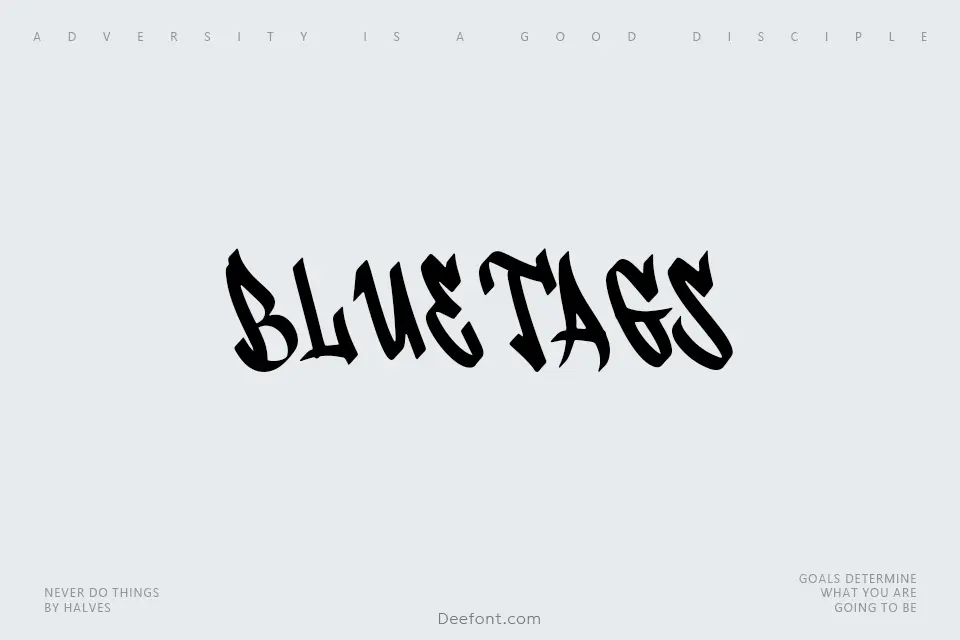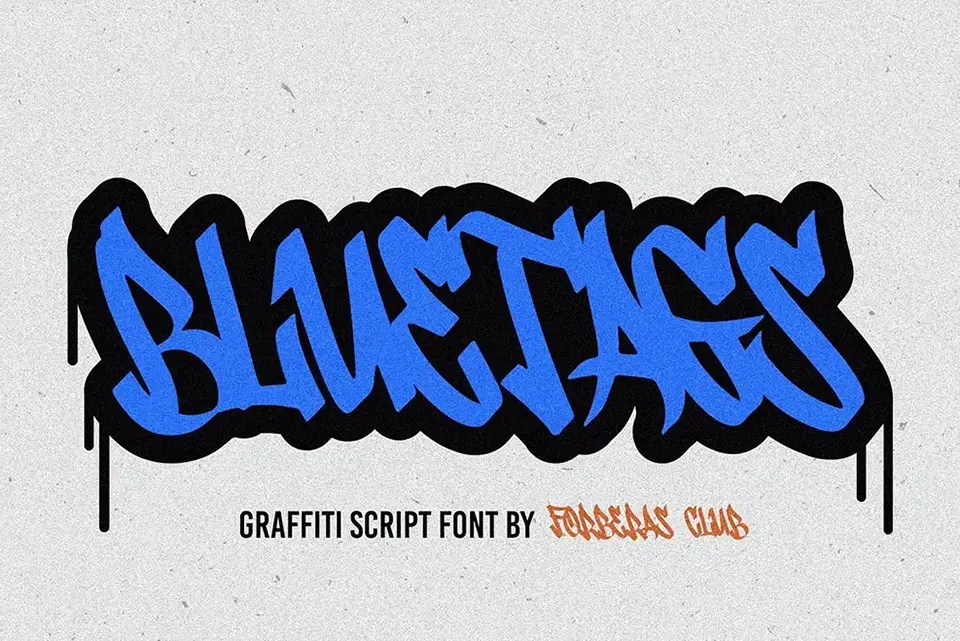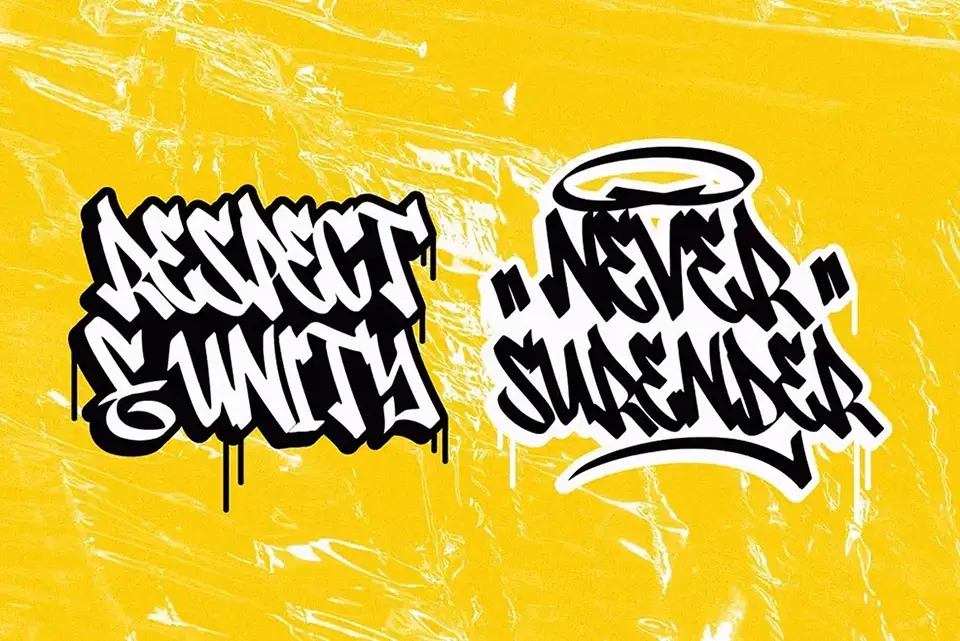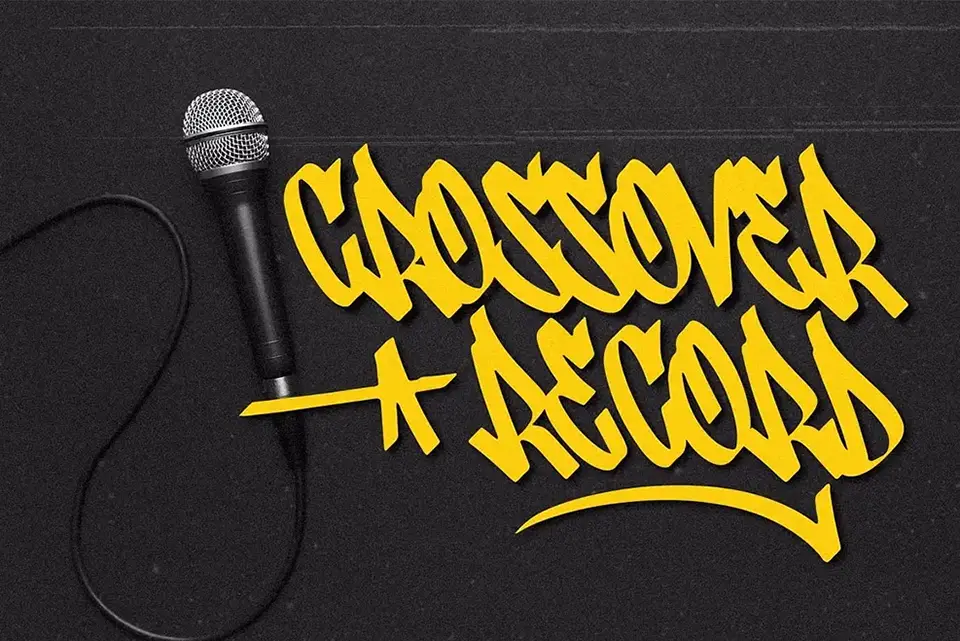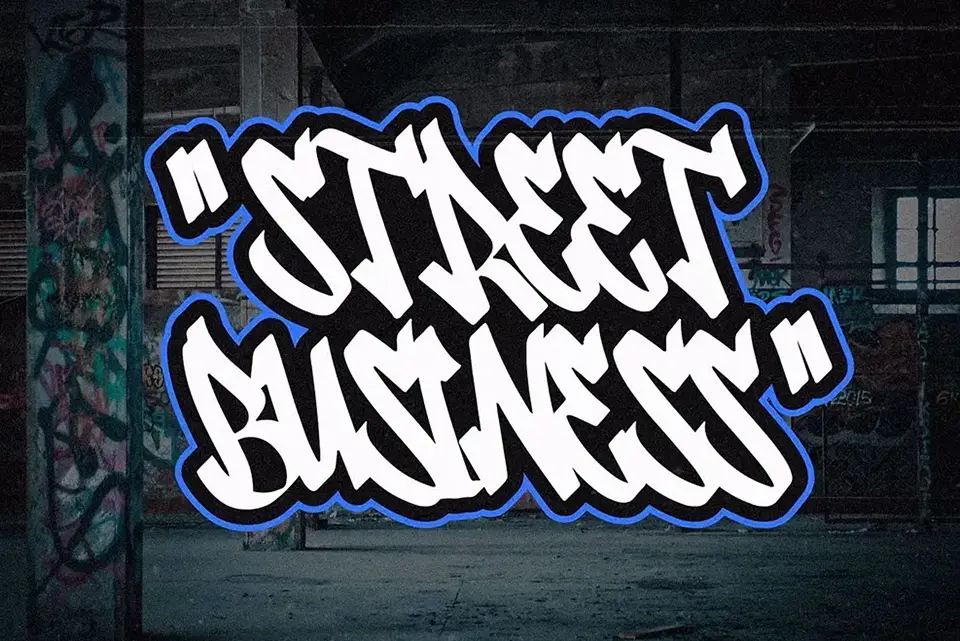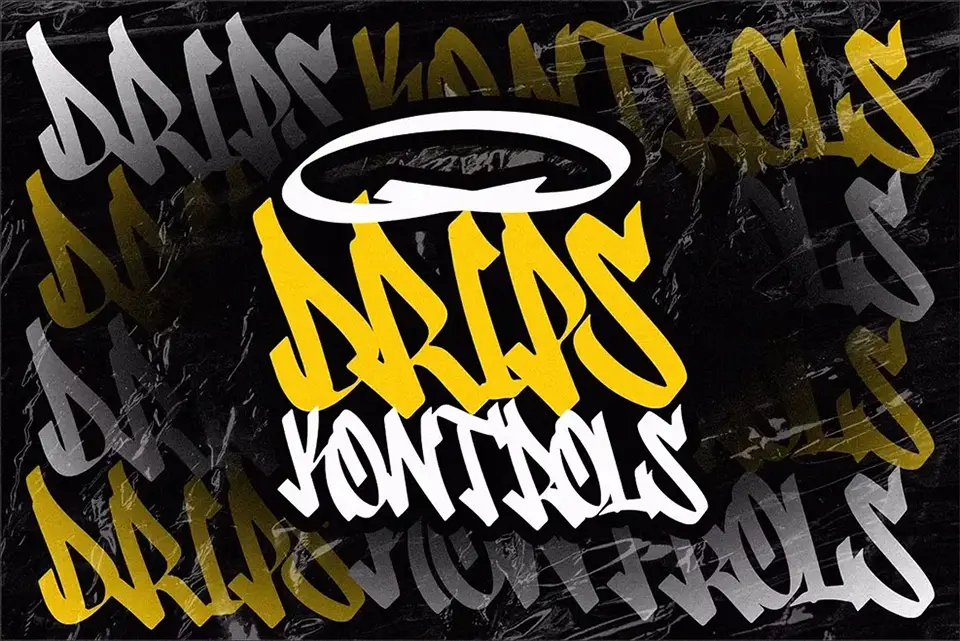
Bluetags Font
Bluetags is a bold graffiti-inspired condensed typeface with gothic influences and an expressive, rebellious character. Featuring angular, urban lettering with a painted appearance, this font combines organic and energetic modern aesthetics. Perfect for street art-inspired designs, branding, shop signs, packaging, clothing tags, streetwear fashion projects, business cards, magazine headers, logos, social media ads, and billboards. The playful uppercase and lowercase letters offer non-symmetrical, funky appeal ideal for youthful, creative designs requiring strong visual impact and contemporary edge.
Designed by:Anggi Hermawan (Forberas Club)